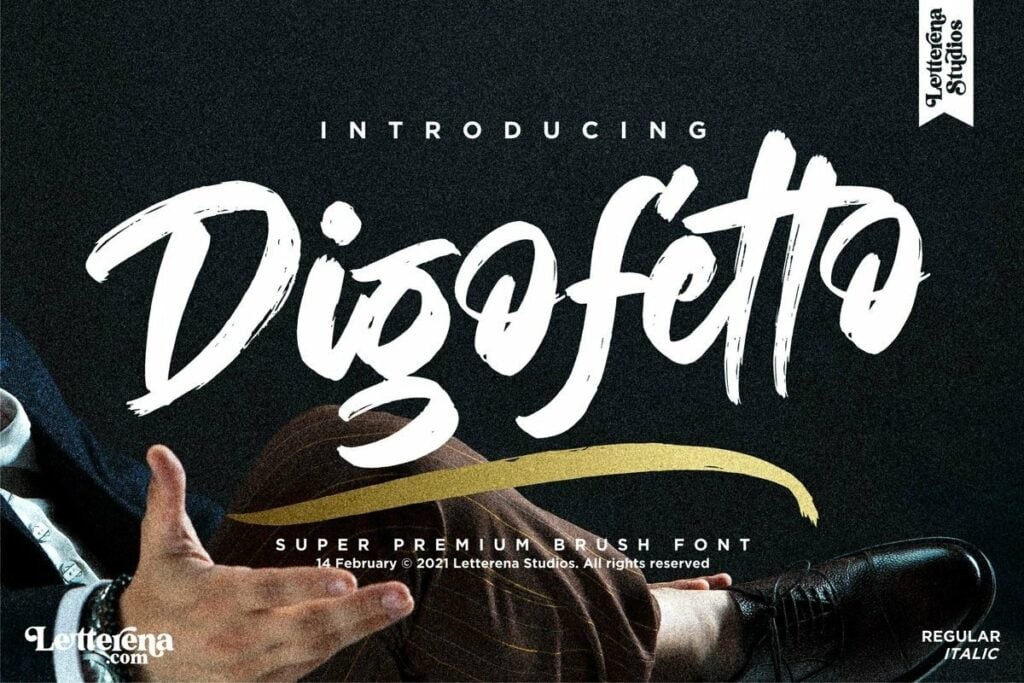
Digofetto Font
Introducing the new Digofetto Strong Brush Font, is a premium brush script font, suitable for any projects such as: logos, branding projects, homeware designs, product packaging, mugs, quotes, posters, shopping bags, t-shirts, book covers, name card, invitation cards, greeting cards, label, photography, watermark, special events, and all your other luxury projects that need a strong brush taste.
Digofetto Brush Script Font